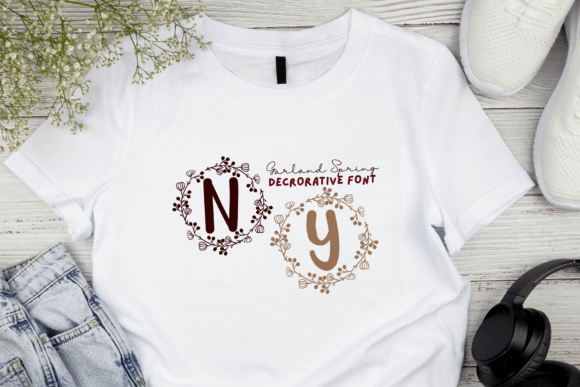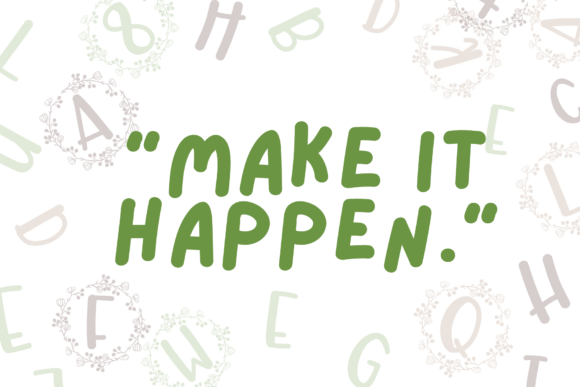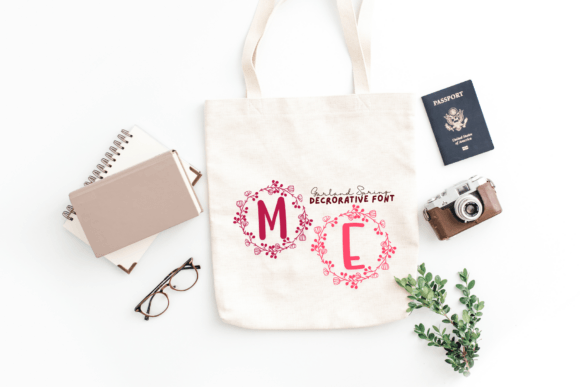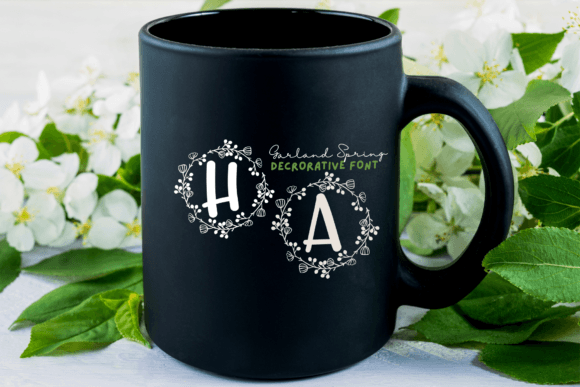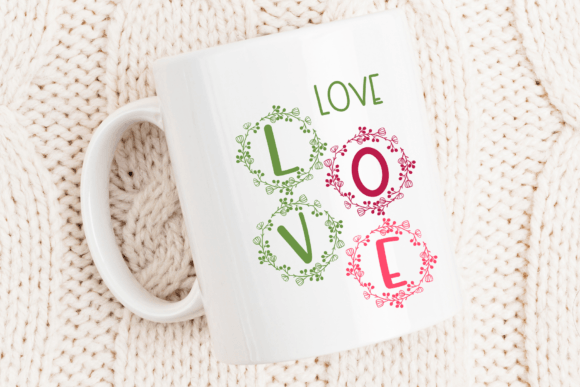
Introduction to Garland Spring Font
Garland Spring is a Decorative font.
You can use it for taking notes, writing a diary, or making greeting cards However, you can still use it for other designs, such as banners, content, mugs, cards, shirts, stationery, social media posts, and more.
Key Features of Garland Spring Font
Why Choose Garland Spring Font?
Garland Spring Font offers exceptional quality and versatility, making it a valuable addition to your design toolkit. Whether you’re creating for personal projects or commercial use, Garland Spring Font delivers professional results.